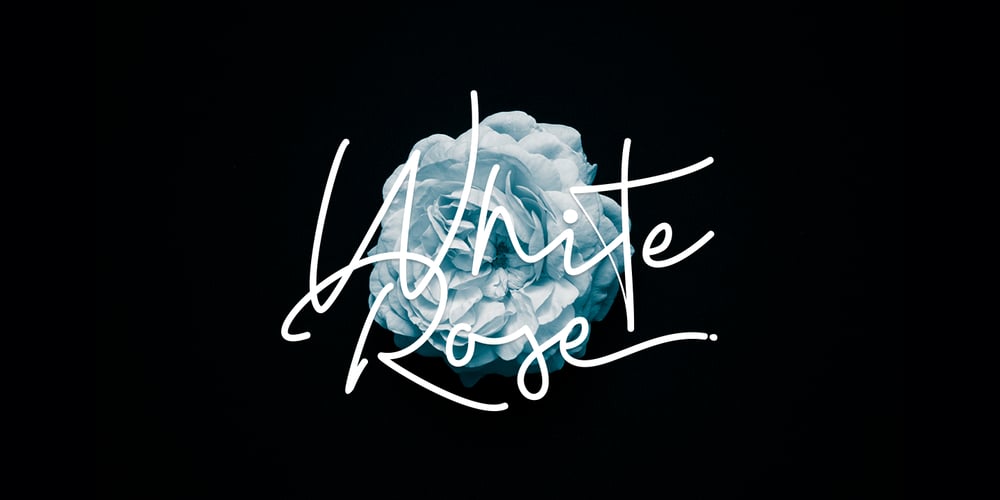
Madelon Script Font Family was designed by Ferdiansyah and published by ijemrockart. Madelon Script contains 1 styles and family package options. Madelon Script a new fresh & modern script with a handmade calligraphy style, decorative characters and a dancing baseline. So beautiful on invitation like greeting cards, branding materials, business cards, quotes, posters, and more. Madelon Script comes with 347 glyphs. The alternative characters were divided into several Open Type features such as Swash, Stylistic Sets, Stylistic Alternates, and Ligature. The Open Type features can be accessed by using Open Type savvy programs such as Adobe Illustrator, Adobe InDesign, Adobe Photoshop Corel Draw X version, And Microsoft Word. And this Font has given PUA unicode (specially coded fonts). so that all the alternate characters can easily be accessed in full by a craftsman or designer.